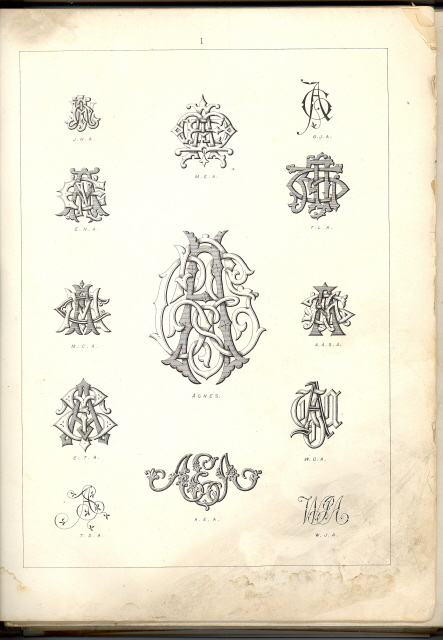
Monogram Engraving Templates
I bought some old paper this past Monday. One of my buys was a 'book' of monogram patterns, one plate of which I included here. The jewelry business from which this book came closed in the Mid-Twenties. It has a total of sixty plates which are edged with gold. There is no covers present. It has a sewn binding. Pages edges are foxed and severely stained on one edge, but it doesn't detract from the images in the least. Can anybody help me identify who put this together?
Dave,
I have a large paperback book: Monograms and Alphabetic Devices by Hayward And Blanche Cirker with over 2500 illustrations. 1970. It is a collection of different designers work. (Renoir, Knight, Demengeot, and Smith) Monograms in three and four letters, designed by J. Gordon Smith (heraldic artist). Your plate is the first plate in the Smith section.
J. Gordon Smith is your designer man !!
A search for "J Gordon Smith" heraldry reveals that this was a leather bound book published in 1880 - in England.